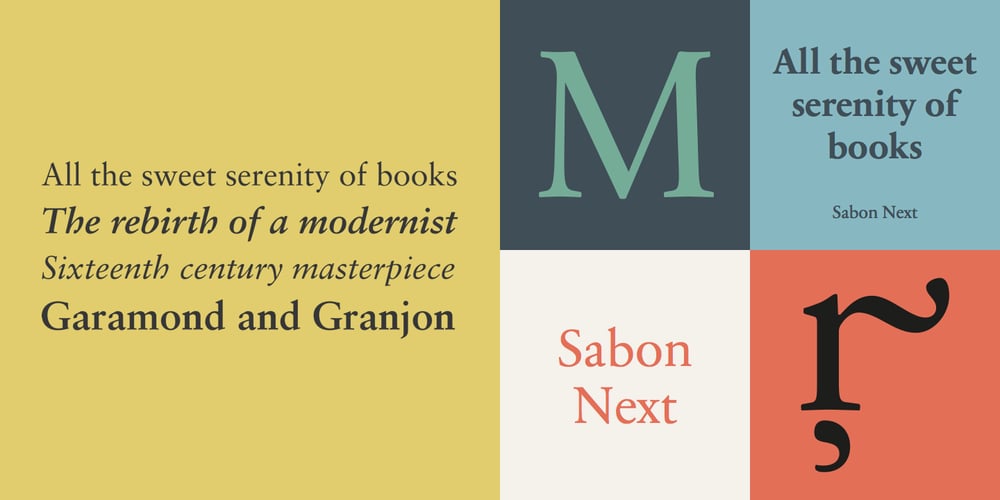
Sabon Next Font Family was designed by Jean François Porchez, Jan Tschichold and published by Linotype. Sabon Next contains 12 styles and family package options. The design of Sabon® Next by Jean François Porchez, a revival of a revival, was a double challenge: to try to discern Jan Tschichold´s own schema for the original Sabon, and to interpret the complexity of a design originally made in two versions for different typecasting systems. The first was designed for use on Linotype and Monotype machines, and the second for Stempel hand composition. Because the Stempel version does not have the constraints necessary for types intended for machine composition, it seems closer to a pure interpretation of its Garamond ancestor. Naturally Porchez based Sabon Next on this second version and also referred to original Garamond models, carefully improving the proportions of the existing digital Sabon while matching its alignments. The new family is large and versatile – with Roman and italic in 6 weights from regular to black. Most weights also have small caps, Old style Figures, alternates (swashes, ligatures, etc); and there is one ornament font with many lovely fleurons. The standard versions include revised lining figures that are intentionally designed to be a little smaller than capitals. Featured in: Best Fonts for Resumes, Best Fonts for Websites, Best Fonts for PowerPoint, Best Fonts for TikTok, Best Fonts for Business Cards